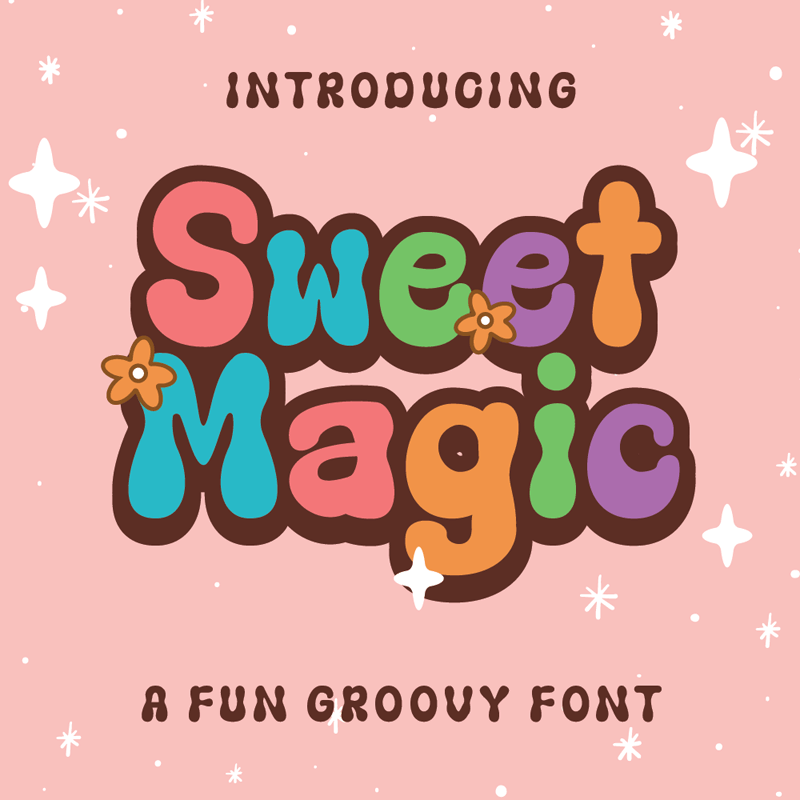
Sweet Magic
Sweet Magic is a versatile, stylish, and playful retro display font perfect for a wide spectrum of applications such as greeting cards, headlines, and many more! Add it to any of your creative projects, and it will give them a romantic and exquisite feel. Buy Here : https://densucreative.gumroad.com/l/sweetmagic